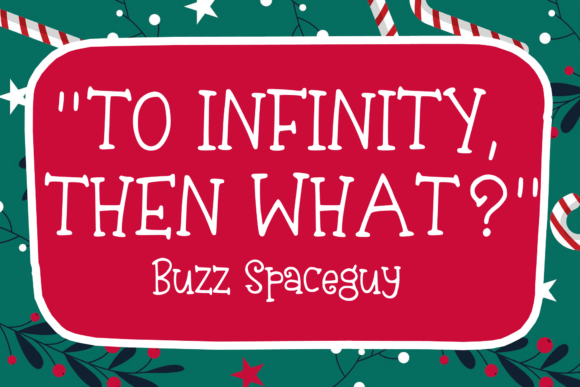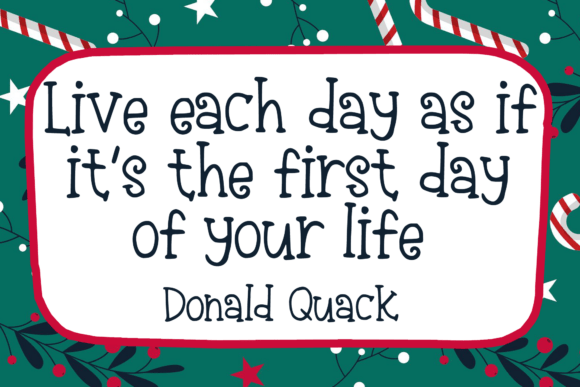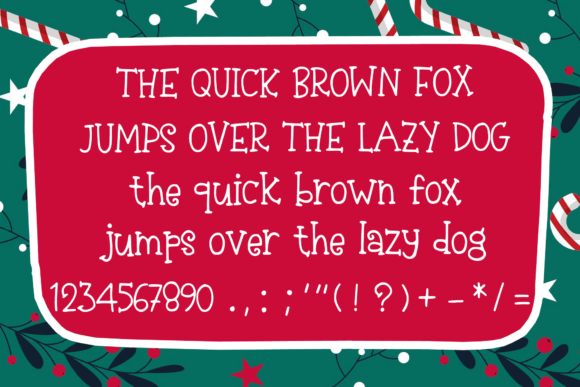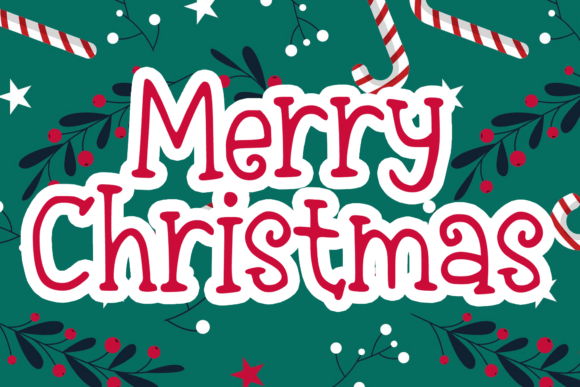
Introducing Christmas Sugar Font: The Ultimate Festive Typeface for Your Creative Projects
Are you looking for a font that can add a dash of festive fun to your designs? Look no further than the Christmas Sugar font! This playful, handwritten typeface is perfect for infusing your projects with a lively and cheerful spirit. Whether you’re working on a Christmas-themed design, an Easter project, or a school assignment, Christmas Sugar is the ideal choice.
What Makes Christmas Sugar Font So Special?
Christmas Sugar is a versatile font that can be used in a wide range of design projects. Its captivating character and unique charm make it perfect for adding a touch of fun to any design theme. From vibrant stickers and trendy t-shirt prints to stunning logo concepts and expressive magazine or book covers, this font can elevate your designs to the next level.
One of the best things about Christmas Sugar is its ability to add a cool, unique touch to your creative sphere. Whether you’re a designer, crafter, or DIY enthusiast, this font is sure to inspire your creativity and help you create designs that stand out from the crowd.
Endless Design Possibilities with Christmas Sugar Font
The possibilities are endless when it comes to using Christmas Sugar in your design projects. Here are just a few ideas to get you started:
- Vibrant Stickers: Add a festive touch to your stickers with Christmas Sugar. Perfect for decorating laptops, water bottles, or any other surface.
- Trendy T-Shirt Prints: Create eye-catching t-shirt designs with Christmas Sugar. Great for holiday-themed apparel or everyday wear.
- Stunning Logo Concepts: Use Christmas Sugar to create unique and memorable logos for your business or brand.
- Expressive Magazine or Book Covers: Add a touch of whimsy to your magazine or book covers with Christmas Sugar. Perfect for children’s books, holiday publications, or any other project that needs a playful twist.
- Whimsical Comic Book Sketches: Bring your comic book characters to life with Christmas Sugar. Great for creating fun and playful dialogue bubbles and captions.
- Daily Typing Tasks: Even everyday tasks like writing emails or creating to-do lists can be made more fun with Christmas Sugar.
Why Choose Christmas Sugar Font?
So why choose Christmas Sugar font for your design projects? Here are just a few reasons:
- Unique and Playful: Christmas Sugar is a one-of-a-kind font that adds a playful touch to any design.
- Versatile: This font can be used in a wide range of design projects, from festive holiday designs to everyday projects.
- High-Quality: This font is designed with high-quality and legibility in mind, ensuring that your designs look professional and polished.
In conclusion, Christmas Sugar font is the perfect choice for anyone looking to add a touch of festive fun to their design projects. With its playful, handwritten style and versatile design, this font is sure to inspire your creativity and help you create designs that stand out from the crowd. So why wait? Download Christmas Sugar font today and start adding a cool, unique touch to your creative sphere!
Whether you’re a designer, crafter, or DIY enthusiast, Christmas Sugar font is the ultimate festive typeface for your creative projects. So go ahead, get creative, and make your designs merry and bright with Christmas Sugar!